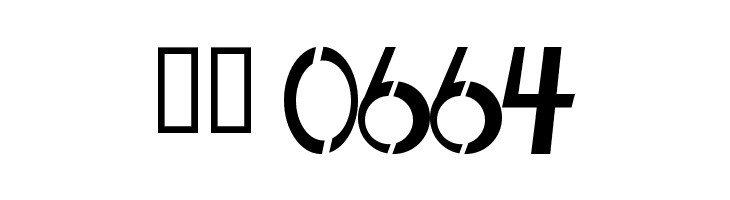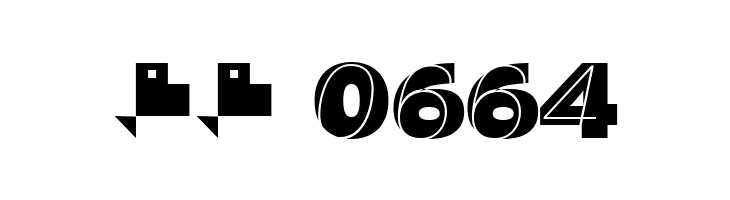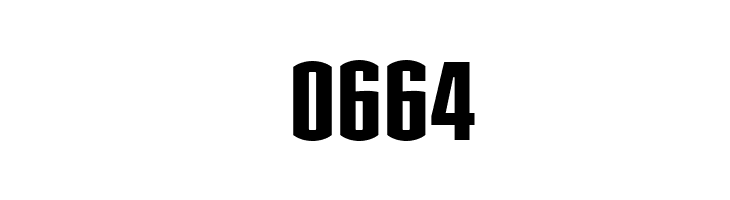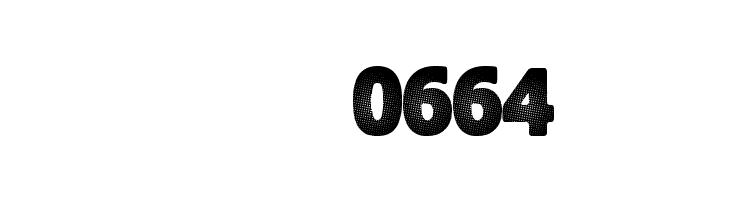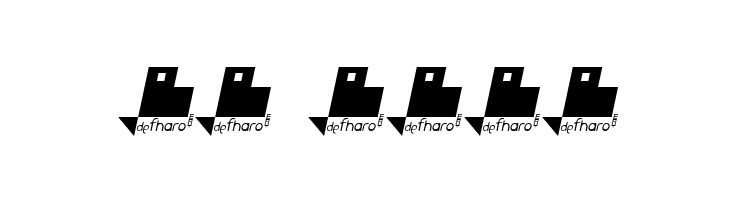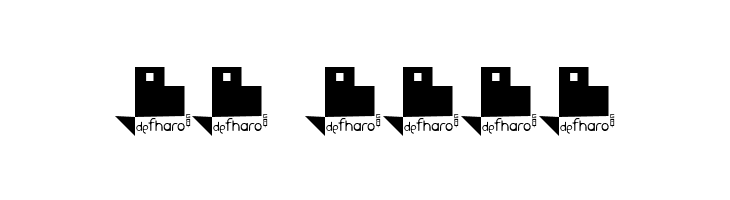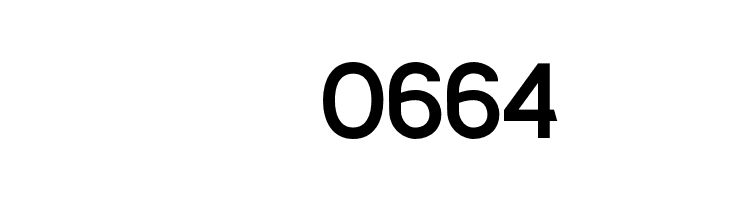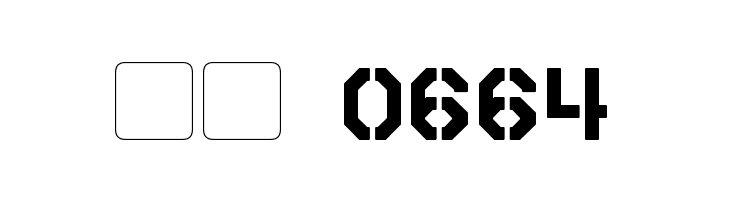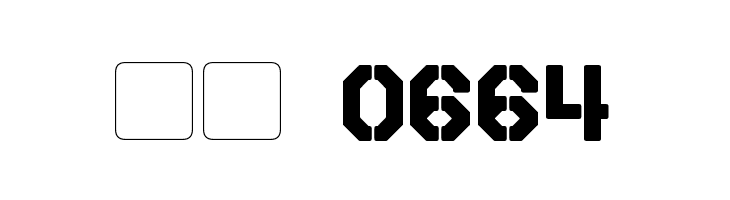
Bold, textured font with a unique dotted pattern.
( christianmunk.blogspot.com/ )
A bold, interconnected decorative font with geometric shapes.
( Alejandro Sanclemente )
A modern, geometric font with sharp angles and unique cut-out sections.
A whimsical and artistic font with consistent stroke width and modern calligraphic style.
A playful, bold, and whimsical font with looped and curved elements.
A bold, geometric stencil-style font with a modern, industrial feel.
A bold, geometric stencil-style font with sharp, angular edges.
A bold, italicized font with a geometric and angular design, perfect for modern projects.
A bold, angular, and italic font with a futuristic and dynamic style.
( Bayley Design - William Bayley - behance.net/bayleydesign www.freshcomfonts.co.uk/william-suckling-22-c.asp )
A modern, geometric font with clean lines and a futuristic style.
( www.behance.net/VcortezStudio )
A bold, modern font with sharp angles and a dynamic, urban style.
A playful, irregular handwritten font with dynamic strokes.
A classic serif font with elegant curves and a traditional appearance.
A bold, geometric font with a modern and decorative style.
An ornate and decorative font with intricate, angular designs.
( typO969 - Douglas Lyle - fonts.typo969.net/ )
A bold, cursive handwritten font with fluid, connected letters.
A bold, 3D, condensed font with playful and dynamic characters.
A bold, 3D-styled font with a strong, impactful presence and thick outlines.
A bold, 3D extra-condensed font with a playful and impactful style.
A bold, 3D font with a playful, dynamic style and thick outlines.
Bold, outlined, condensed font with a playful yet assertive style.